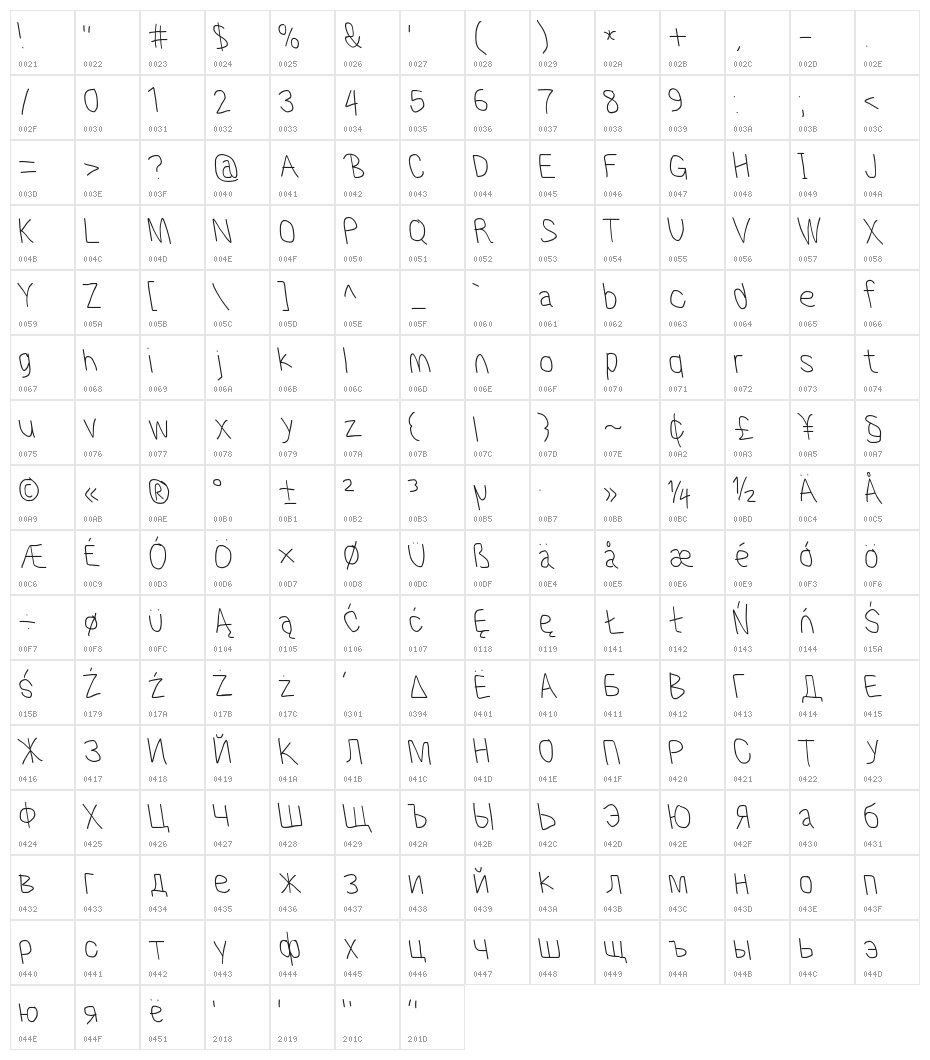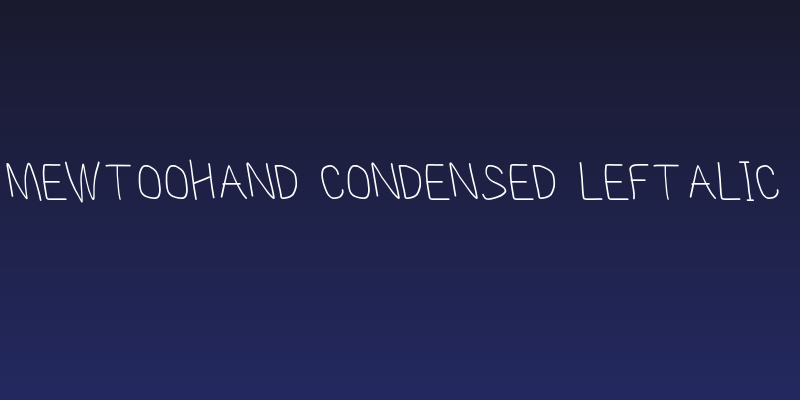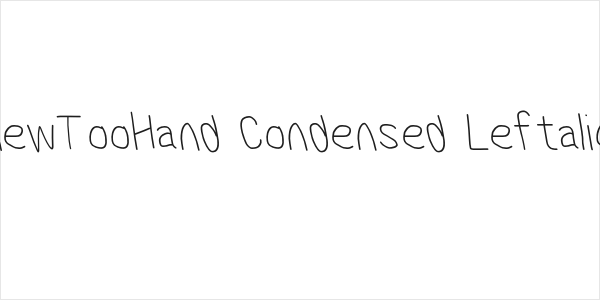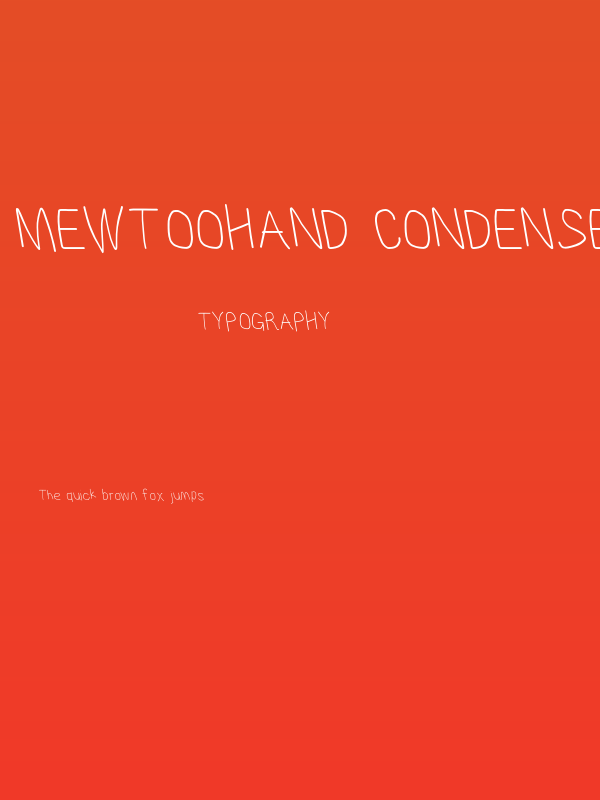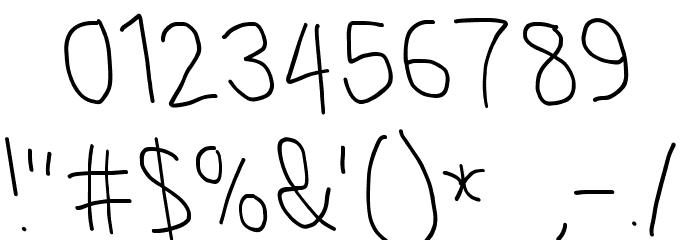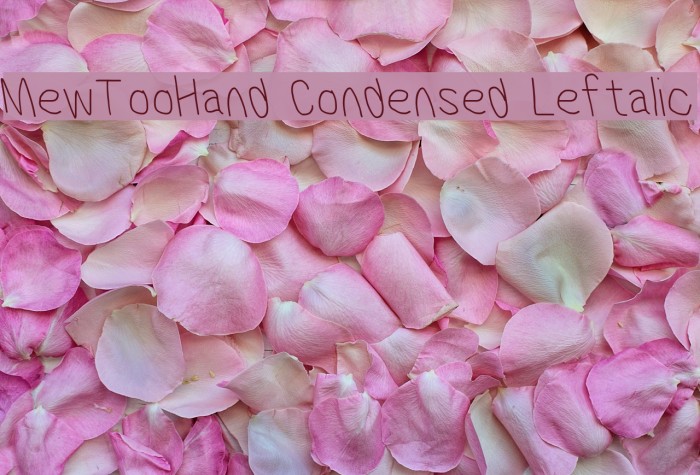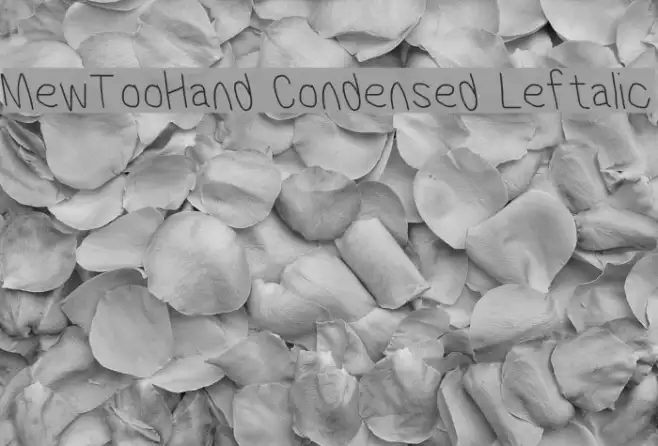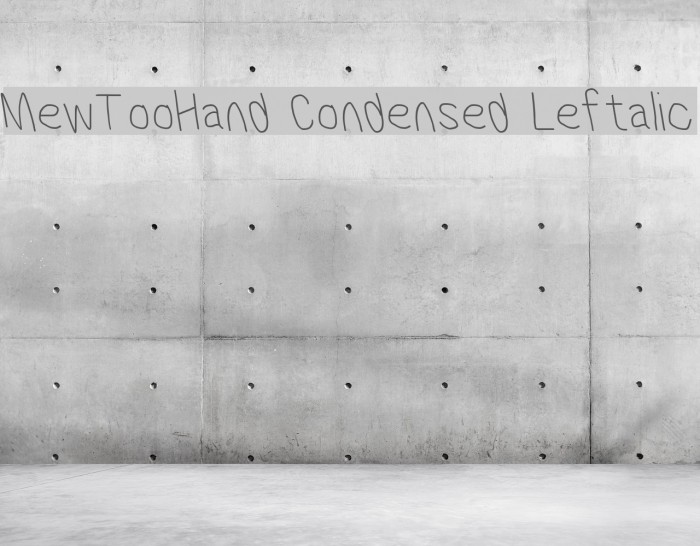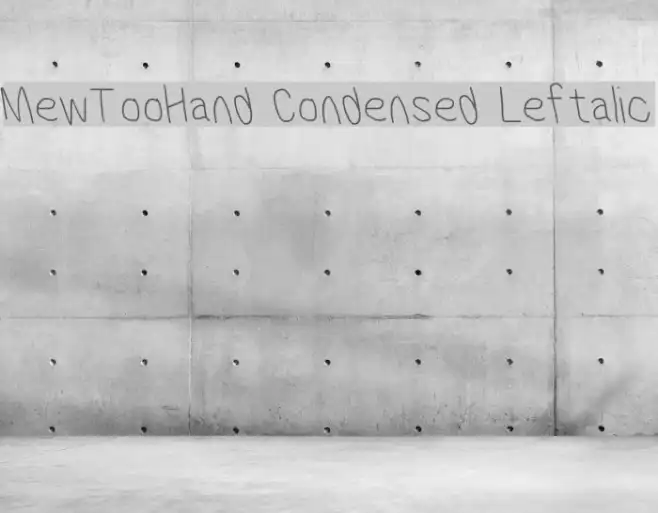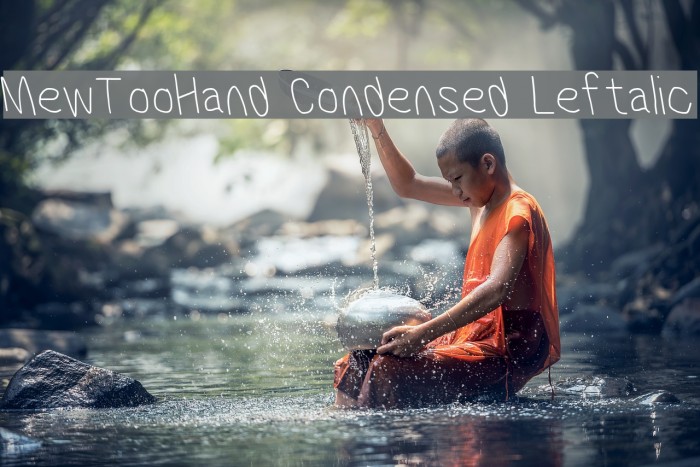
MewTooHand Condensed Leftalic Font
MewTooHand Condensed Leftalic Description
This font features a playful and casual handwritten style, characterized by its condensed and slightly italicized form. The letters are crafted with a consistent stroke width, giving it a uniform appearance. The uppercase and lowercase letters maintain a friendly and approachable look, with rounded edges and a slight slant to the left. The numerals and special characters follow the same design principles, ensuring a cohesive look across all characters. This font's informal and relaxed style makes it suitable for projects that require a personal touch.